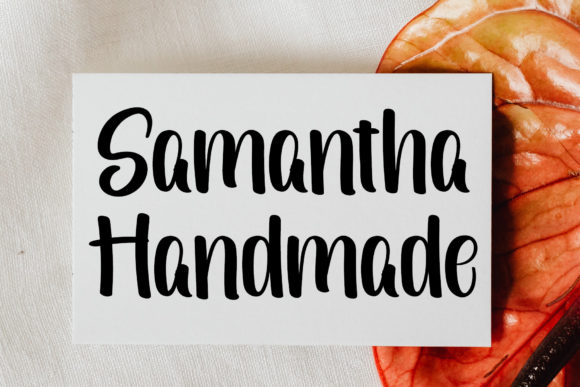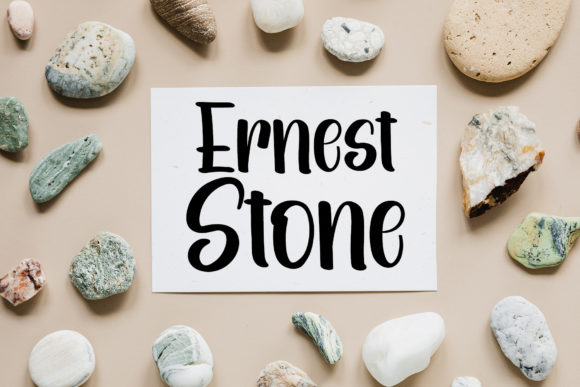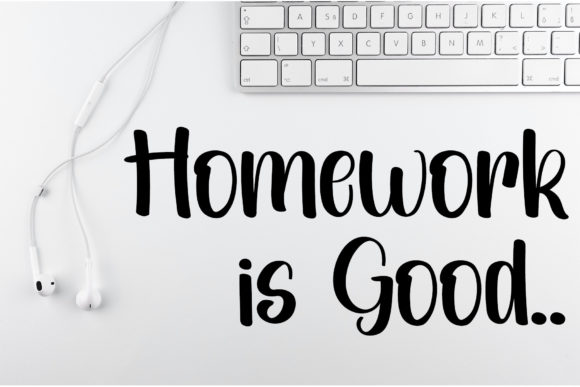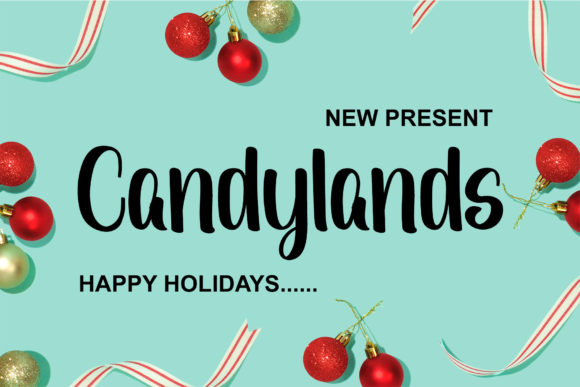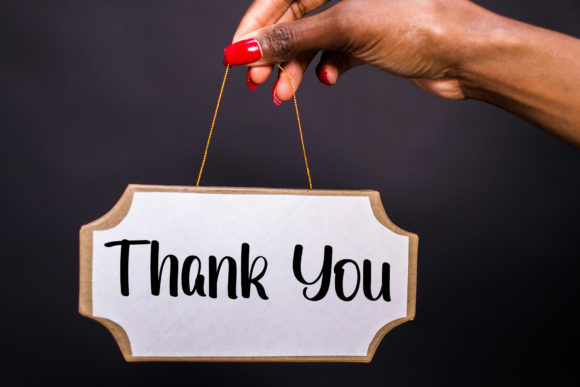
The Digital Paper Font: A Friendly and Cute Companion for Your Design Projects
Have you ever been in the middle of a design project, and suddenly, you’re stuck on finding the perfect font? I recall a recent experience where I was working on a whimsical craft project, and my client’s request was to make it look “fun and playful.” As I scrolled through my font library, I stumbled upon the Digital Paper Font – a simple, friendly, and cute handwritten font that instantly caught my attention.
This adaptable font has been a game-changer for various design ideas, and I’m excited to share its features, uses, and some helpful tips with you. Whether you’re a designer, crafter, or creative hobbyist, you’ll love how Digital Paper Font can add a fun and adaptable touch to each of your projects!
An Honest Review: What I Love and Some Quirks
- ✅ Easy to read and understand, making it perfect for body text or headings
- ✨ Cute and playful vibe that’s sure to capture your audience’s attention
- ✅ Highly versatile and adaptable to various design styles and projects
- ✅ Works well with both digital and print materials
Some Quirks to Consider 🤔
- ⚠️ Limited character set compared to some other fonts, which might limit its use in certain projects
- ⚠️ Not ideal for very small font sizes, as some details might get lost
The Digital Paper Font was created with the intention of providing a friendly and approachable font for designers and crafters. Although the actual designer is unknown, it’s clear that the goal was to craft a font that’s both fun and versatile. The result is a font that feels like a warm conversation with your audience.
Q: What type of projects is Digital Paper Font best suited for?
A: Digital Paper Font is perfect for a wide range of projects, including craft projects, digital designs, print materials, and more.
Q: Is Digital Paper Font available in different weights or styles?
A: Currently, Digital Paper Font is available in a single weight, but its versatility and adaptability make it suitable for various design applications.